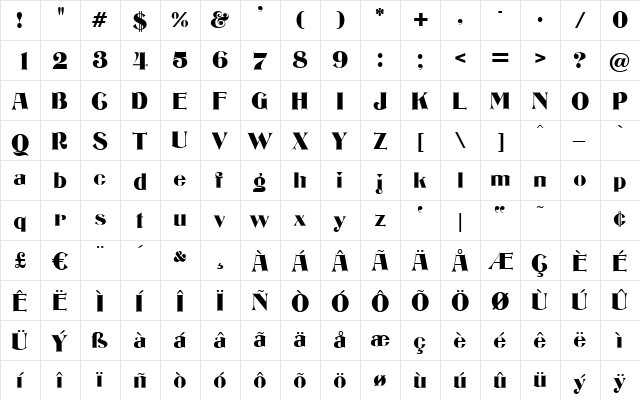
Edgware Regular
Design Context for Edgware Typeface
Edgware offers clean, dependable letterforms without strong stylistic allegiance, making it a practical choice for designers who need flexibility.